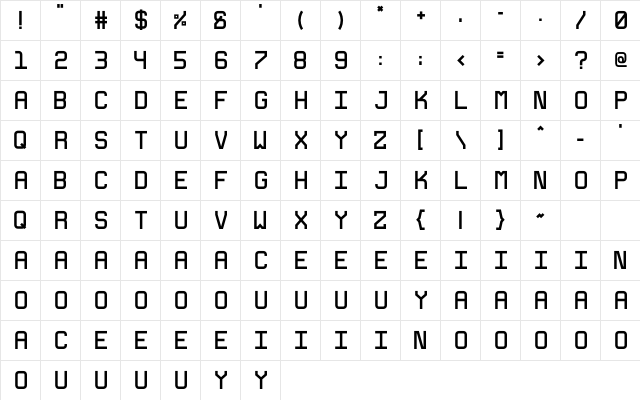
EVA35 Bold
| Designer | nloah |
Design Context for EVA35 Typeface
EVA35 offers clean, dependable letterforms without strong stylistic allegiance, making it a practical choice for designers who need flexibility. The heavy weight commands attention and anchors typographic hierarchies.